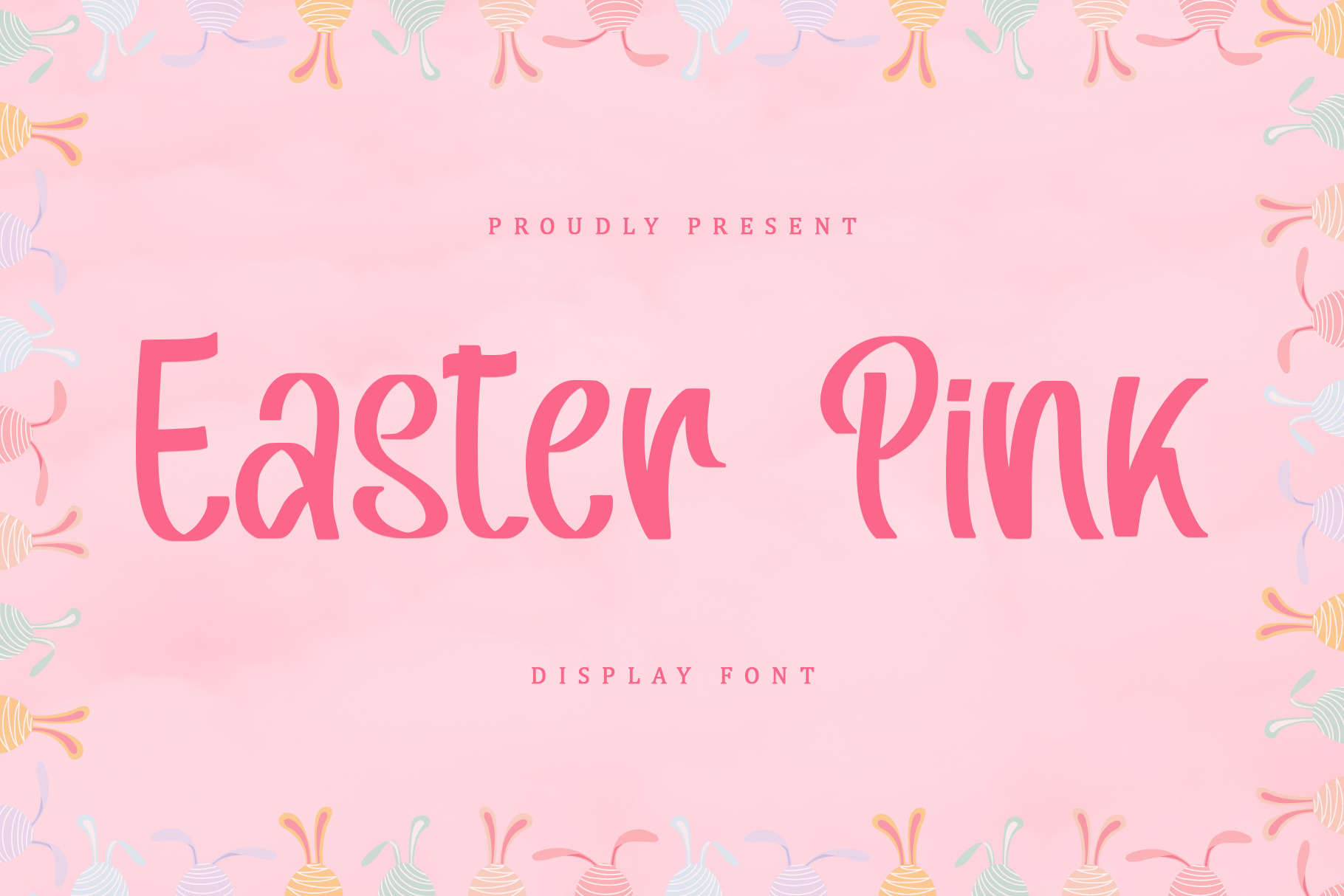
Easter Pink | Displat Font
Easter Pink is a beautiful and modern script font that exudes elegance and sophistication. With clean lines and subtle curves, this font is perfect for adding a touch of refinement to any design project. Ideal for creating logos, headlines, and branding materials with a contemporary feel.